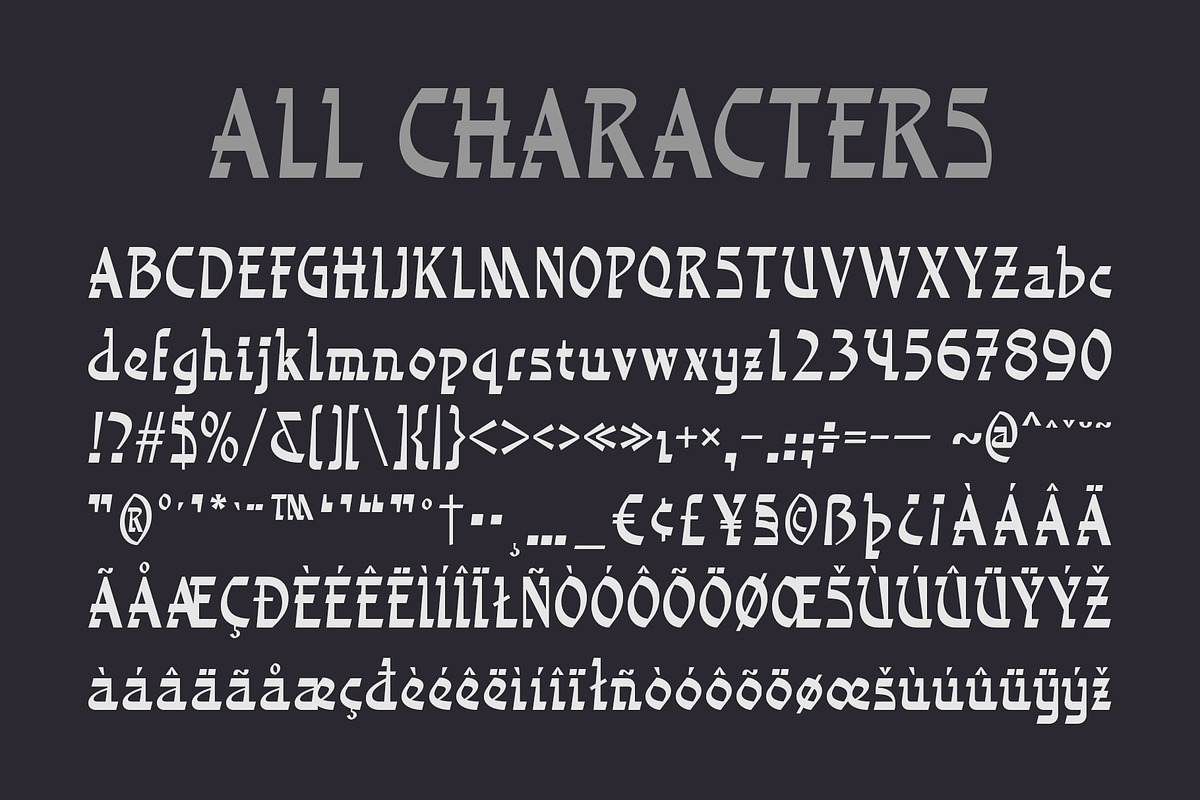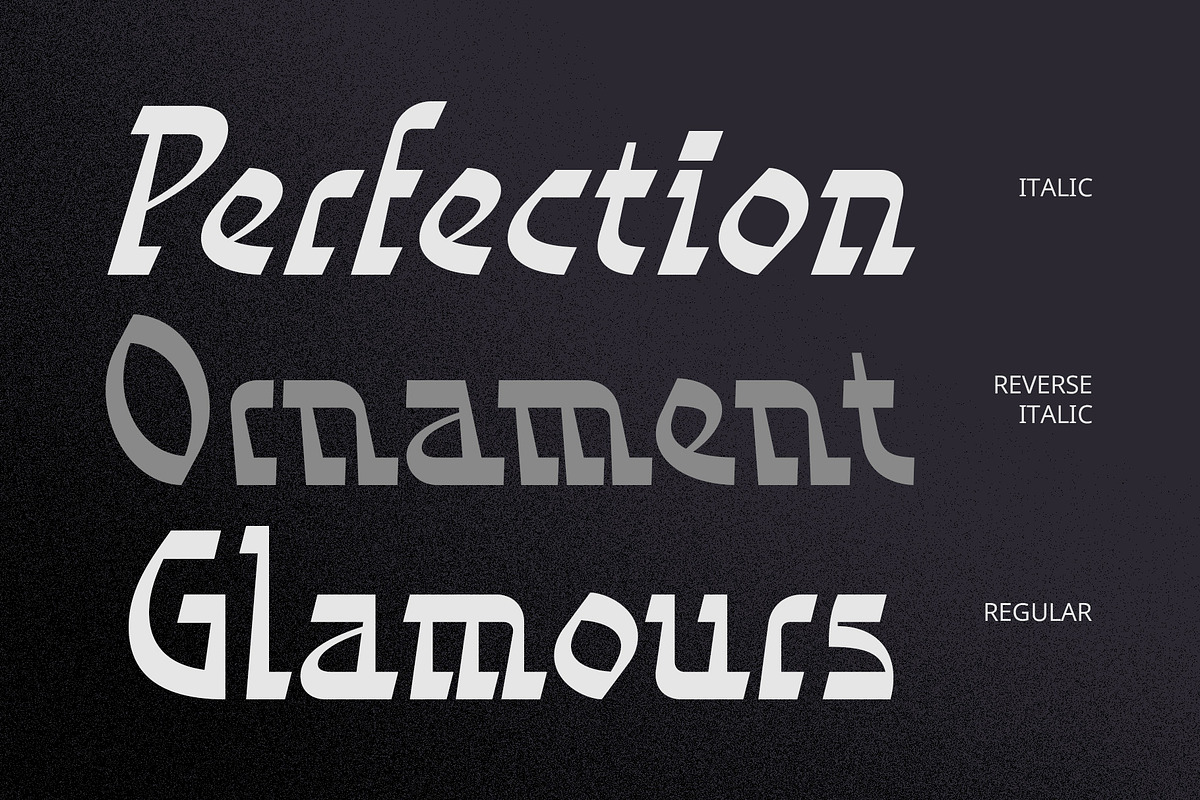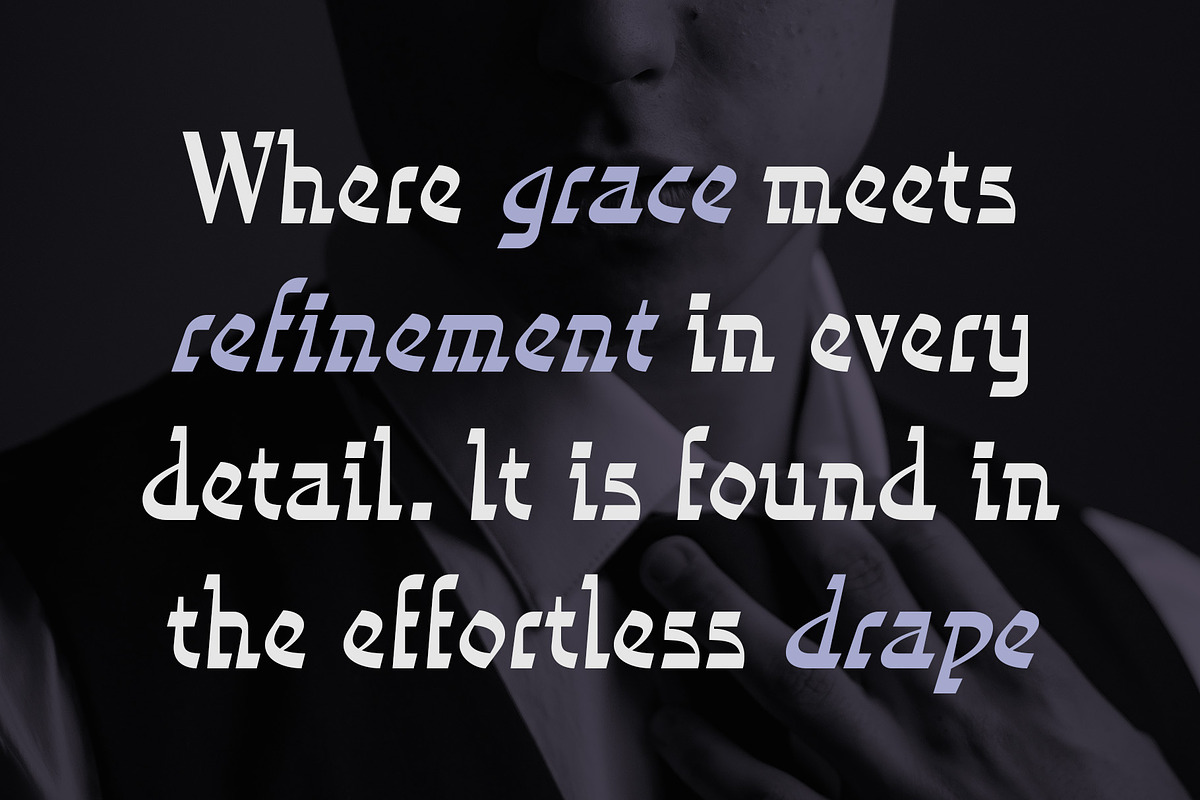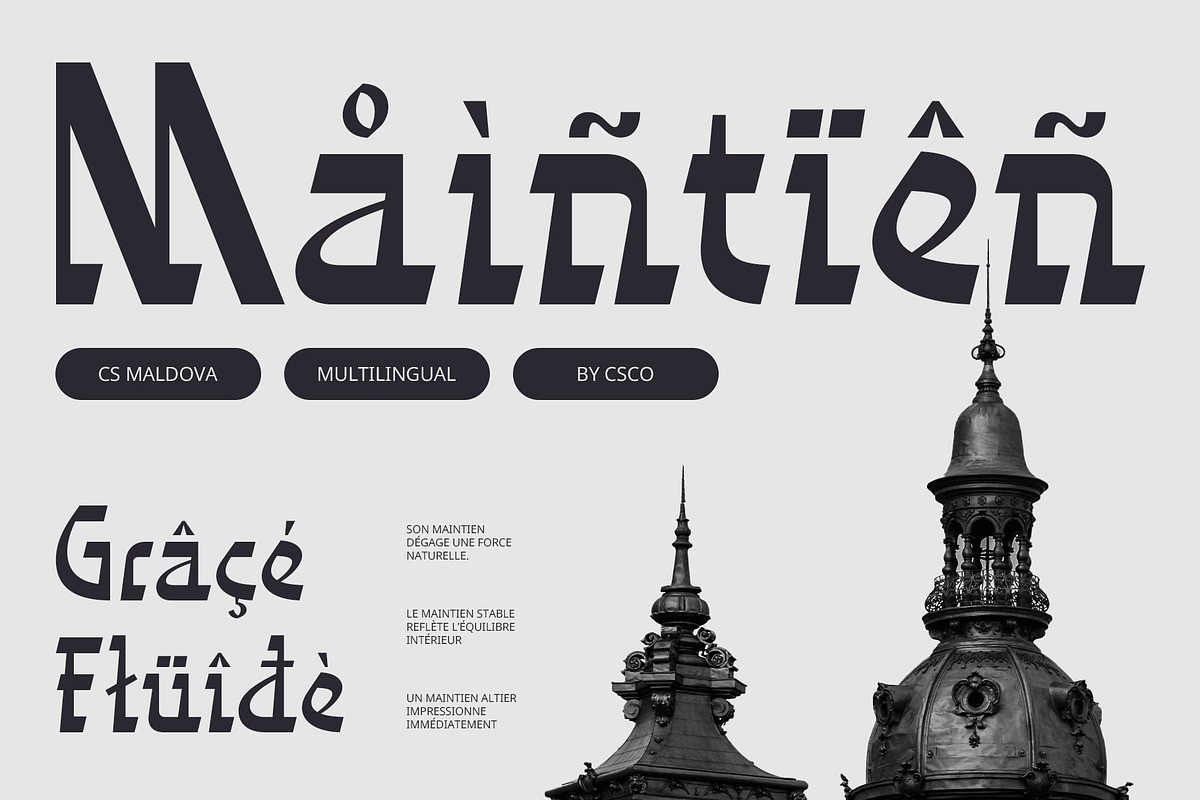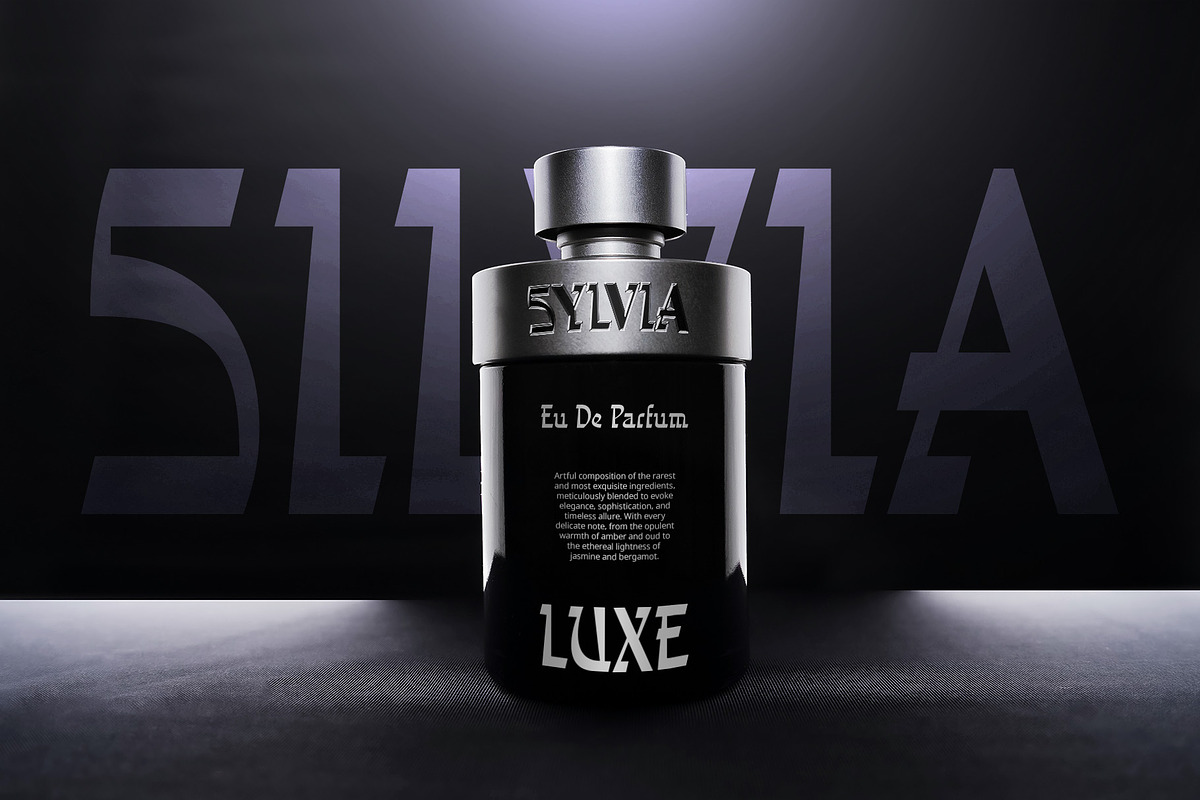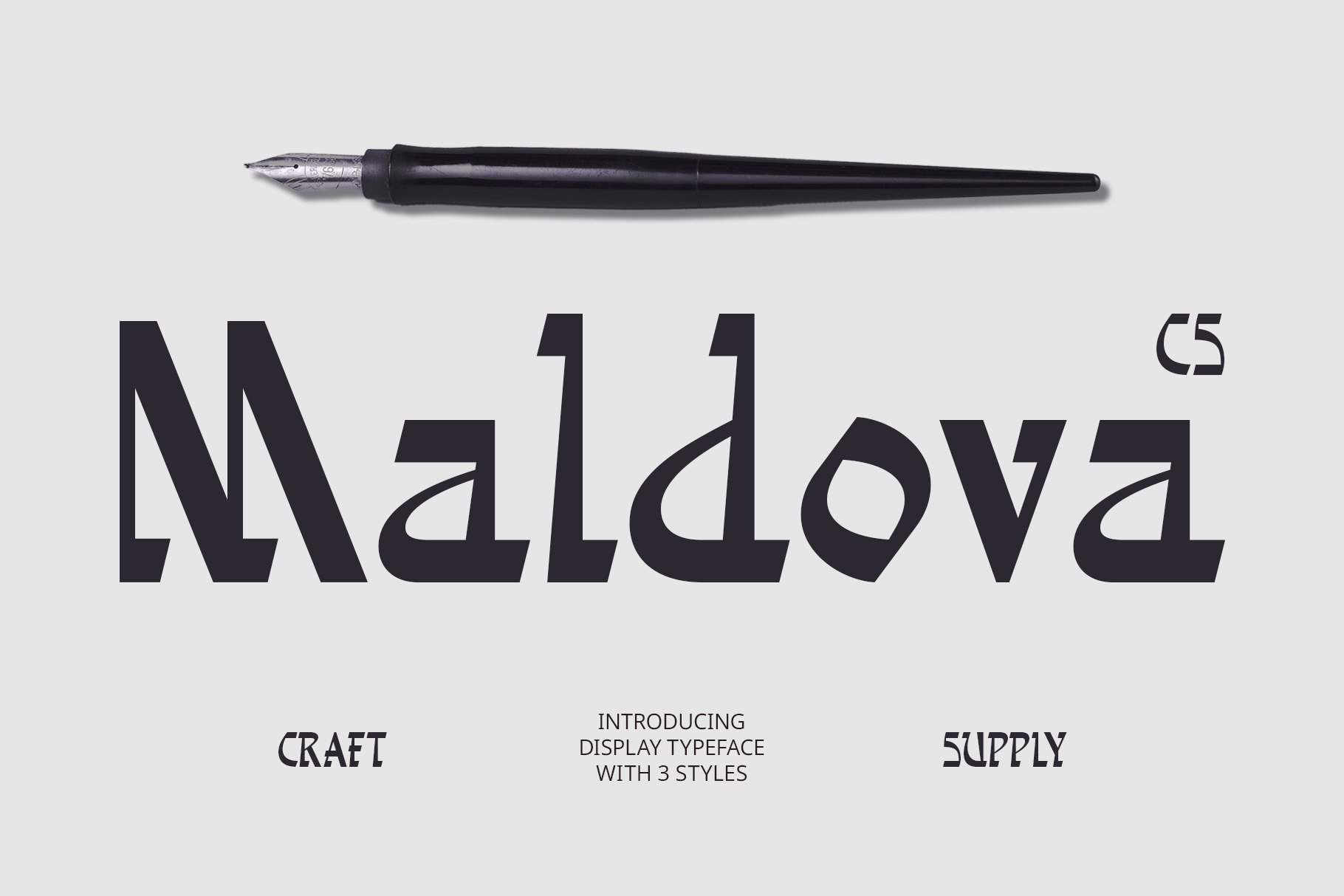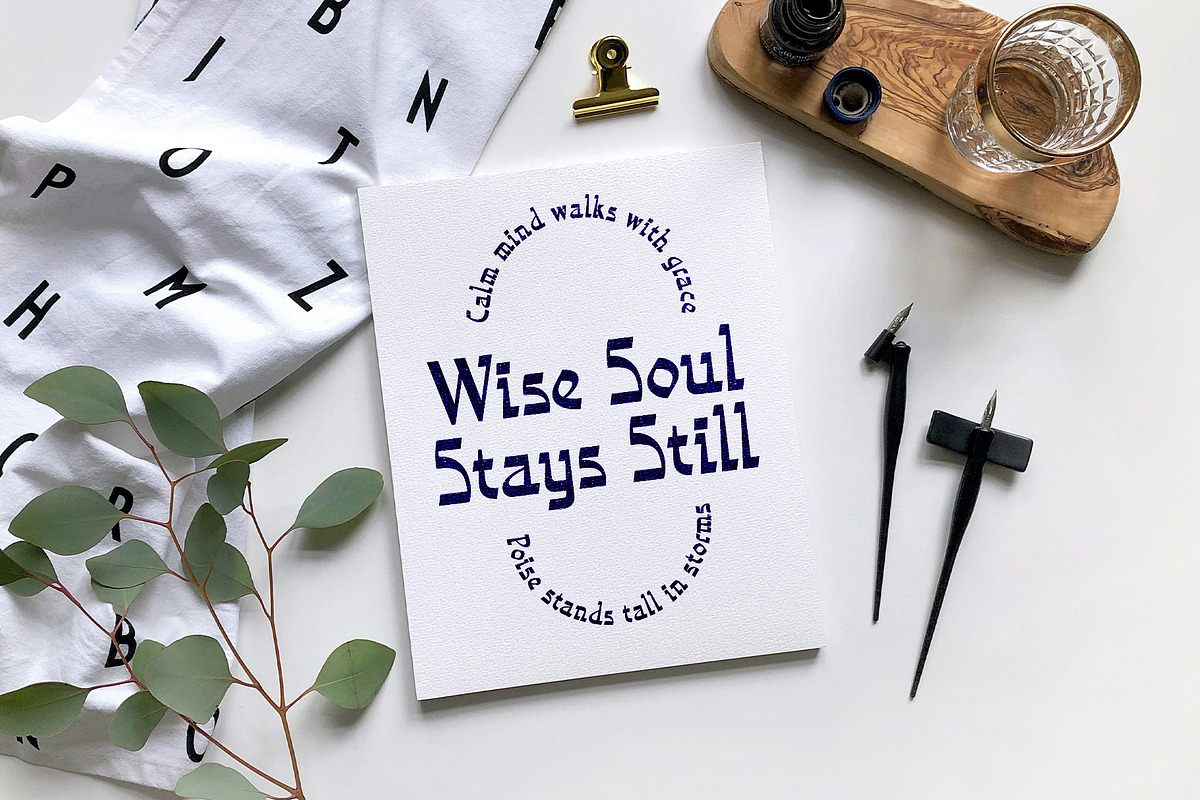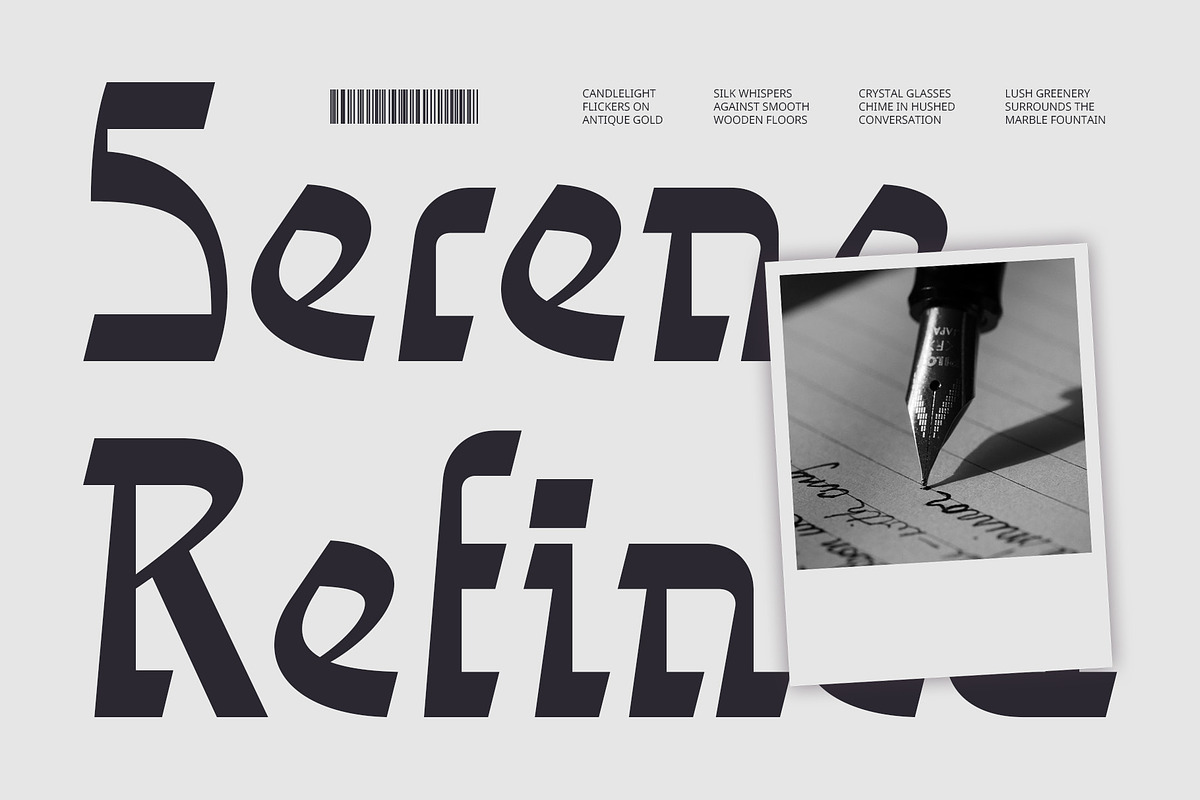
CS Maldova – Flat Brush Font
CS Maldova – Flat Brush Font: Bold Strokes with a Handcrafted Edge
Authentic Flat Brush Stroke Design CS Maldova – Flat Brush Display Font captures the raw energy of flat brush lettering, featuring bold, solid strokes with a slightly textured edge. The natural yet structured design brings a handcrafted feel while maintaining clarity and legibility, making it a perfect balance between artistic expression and functionality.
Dynamic and Expressive Character With its strong, confident letterforms, CS Maldova delivers a dynamic and energetic impression. The organic flow of each stroke creates a sense of movement, adding personality and impact to any design while keeping the text easy to read.
Perfect for Branding, Posters, and Packaging Designed for bold statements, CS Maldova shines in branding, eye-catching posters, and unique packaging. Its handcrafted yet refined aesthetic makes it ideal for businesses seeking a creative and modern identity, from lifestyle brands to artistic product labels.
A Handcrafted Touch Without Sacrificing Readability CS Maldova combines the warmth of handmade brush strokes with a polished, professional look. Whether used for advertising, social media graphics, or expressive typography projects, this font adds an authentic and stylish touch, ensuring a striking visual presence in every application.